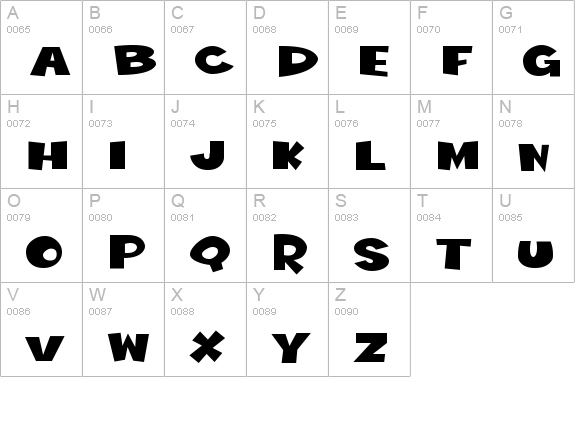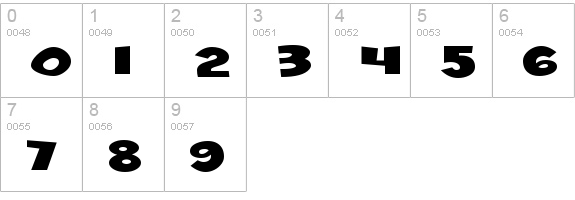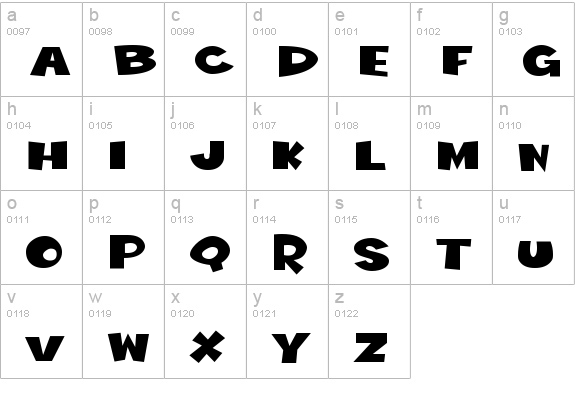
Introducing the captivating and untamed Wild Ketchup BTN font, a typeface that brings a wild and adventurous spirit to your designs. With its bold and energetic letterforms, this font is perfect for adding a touch of excitement to any project. The Wild Ketchup BTN font is inspired by the freedom and unpredictability of the wilderness, making it an ideal choice for outdoor and adventure-themed designs. Its unique and expressive characters evoke a sense of ruggedness and authenticity, capturing the essence of nature's raw beauty. This font is not only visually striking but also highly versatile. Whether you're designing a logo, poster, or website, the Wild Ketchup BTN font will make your text stand out and grab attention. Its strong and dynamic presence commands the viewer's gaze, making it impossible to ignore. One of the most remarkable aspects of the Wild Ketchup BTN font is that it is freely available to download at FontsMarket.com. This means that you can easily access this captivating typeface without any cost, making it a valuable asset for both personal and commercial projects. With its adventurous spirit, bold letterforms, and the freedom of being freely available, the Wild Ketchup BTN font is a must-have for any designer looking to infuse their work with a touch of excitement and wildness. Don't miss out on the opportunity to add this remarkable font to your collection and unleash your creativity today!